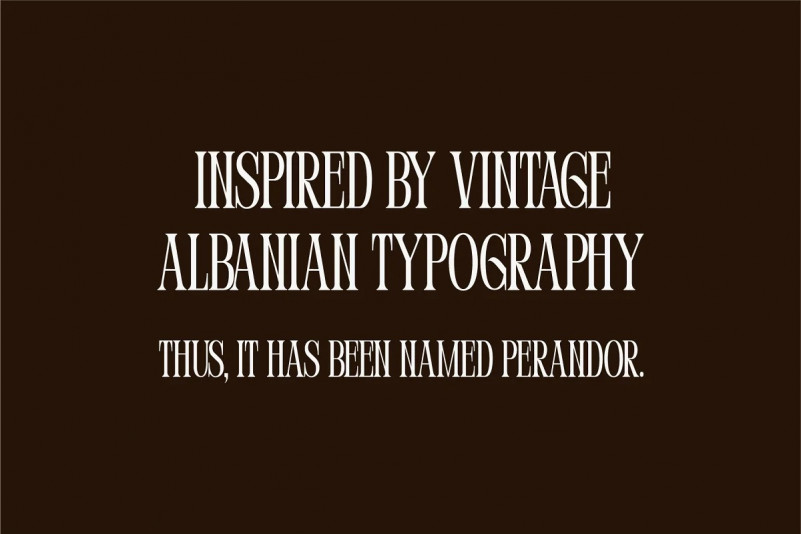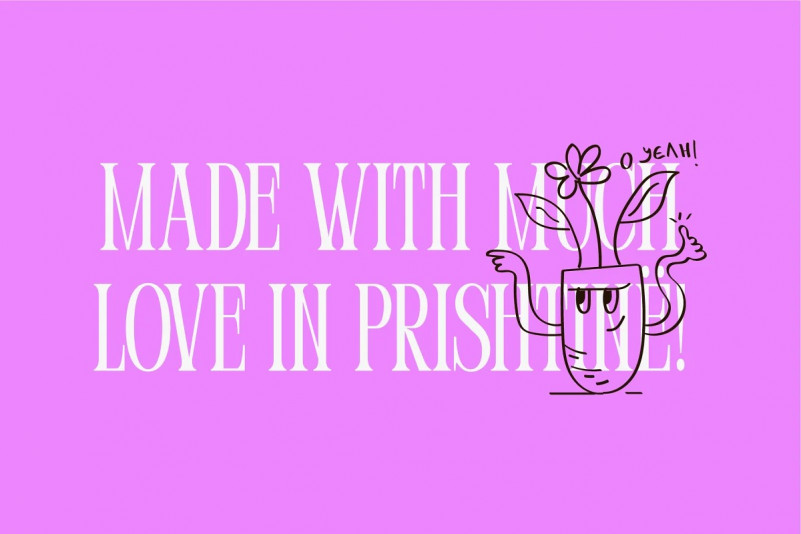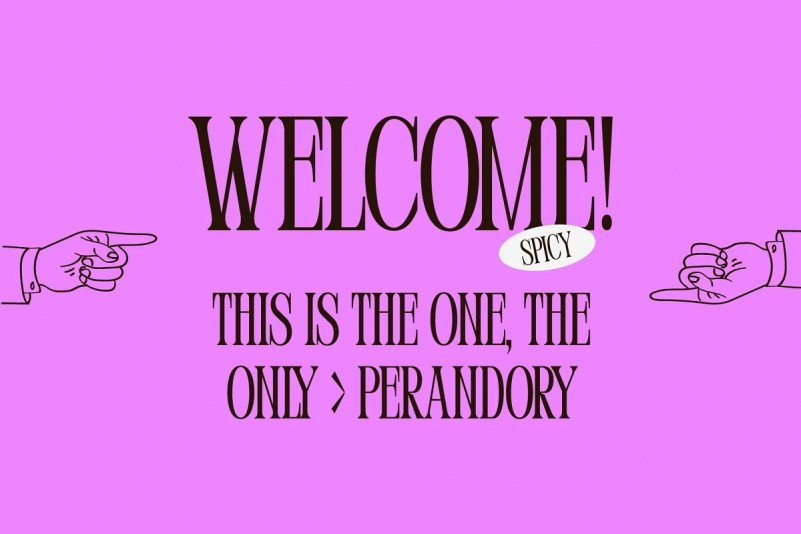
Perandory Font
Greetings! This is the latest type released, Perandory.
The type is a weird serif combined with some sharp turns, it is inspired by vintage Albanian typography & lettering and it features some new-era touches. This makes the type somewhat a hybrid in between the future & the past, keeping our old era alive while still being somewhat trendy.
The type features a couple of styles but only 1 weight. Starting from Regular to Condensed.
Currently only upper-case, but in the near future that might change. Hopefully you enjoy the type & the project showcasing it!